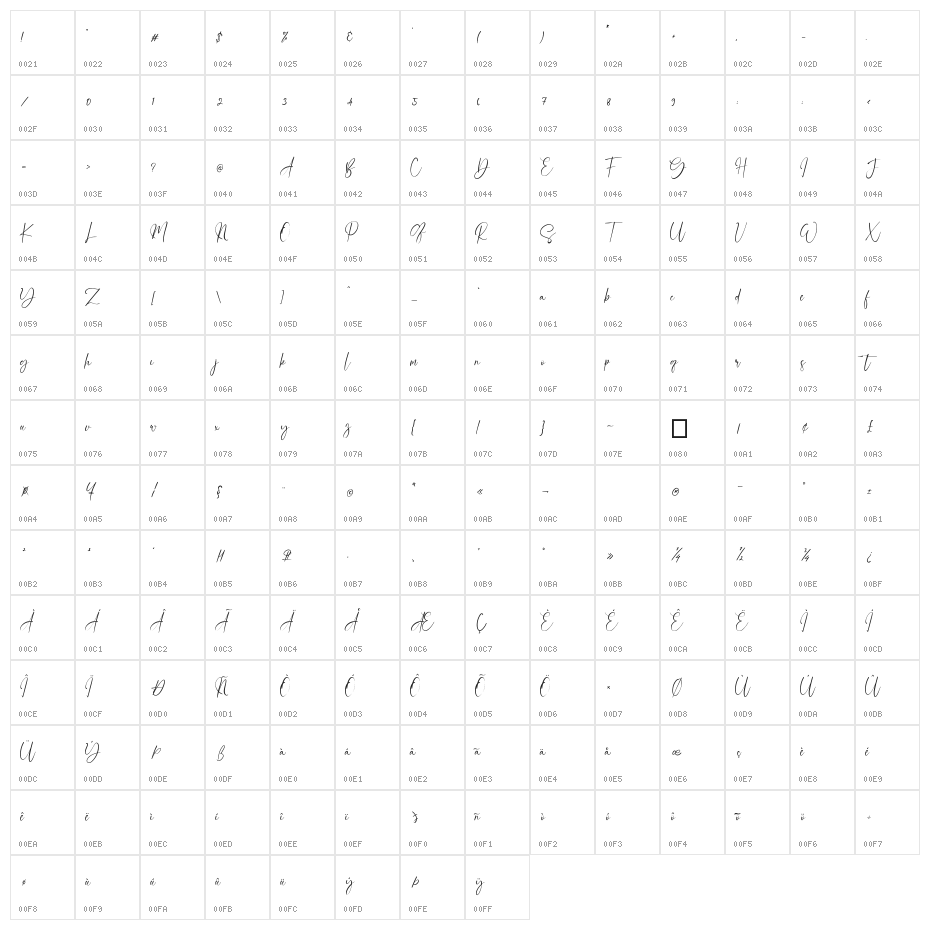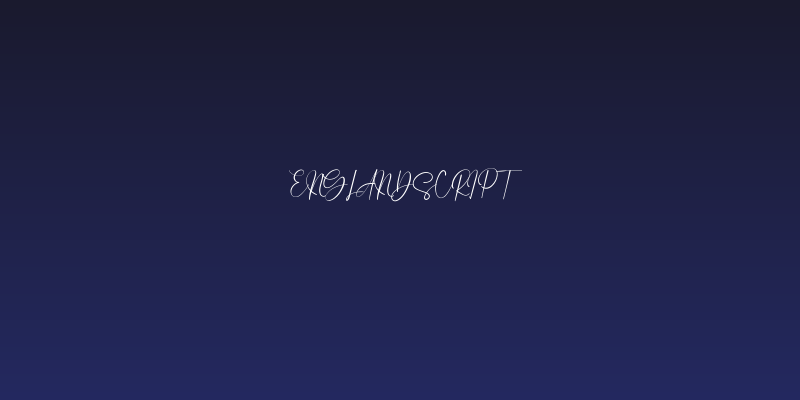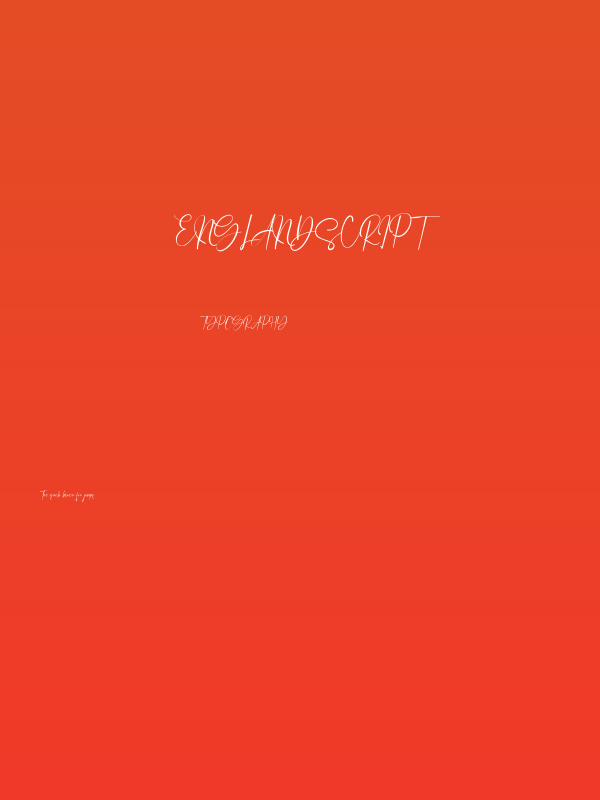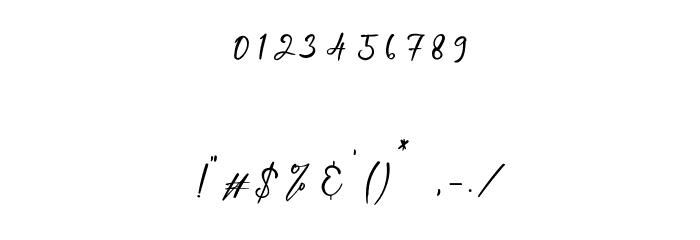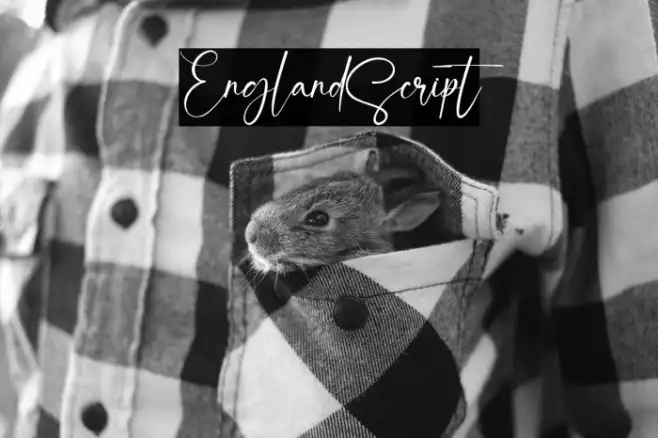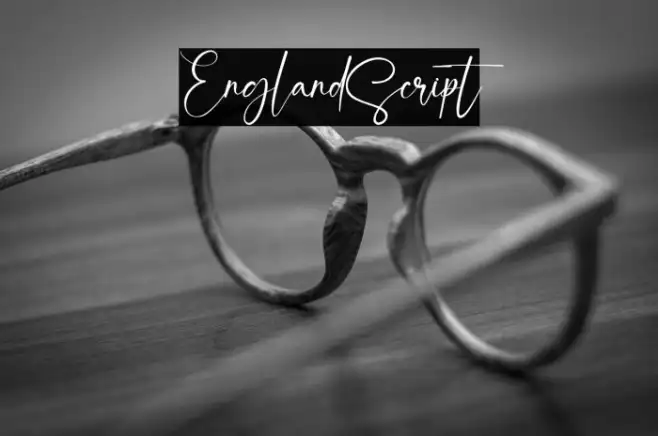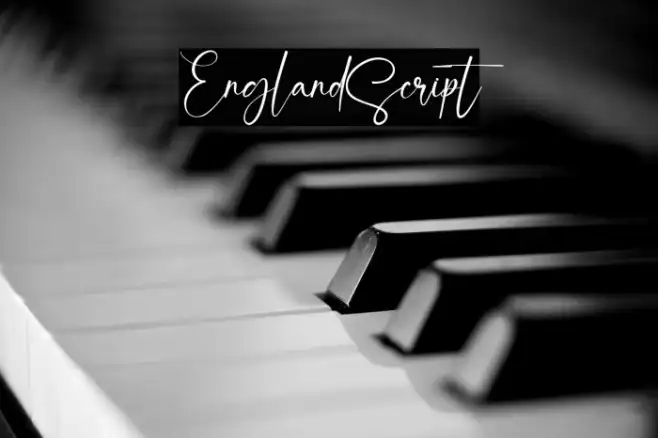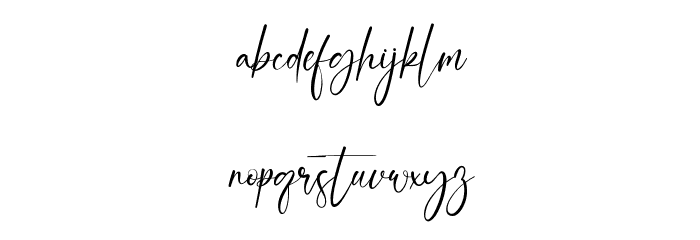
EnglandScript Font
EnglandScript Description
This elegant script font features flowing, interconnected letters that exude a sense of sophistication and grace. The uppercase characters are ornate with sweeping curves and flourishes, while the lowercase letters maintain a consistent, fluid style. The numbers and special characters complement the overall aesthetic, adding a touch of refinement. The font's delicate strokes and moderate contrast make it suitable for formal invitations, branding, and decorative purposes. Its artistic flair and attention to detail create a visually appealing and harmonious appearance.
| Use Case | Invitations, Branding, Decorative text |
| Proposed Projects | Ideal for wedding invitations, luxury branding, greeting cards, and decorative signage. |